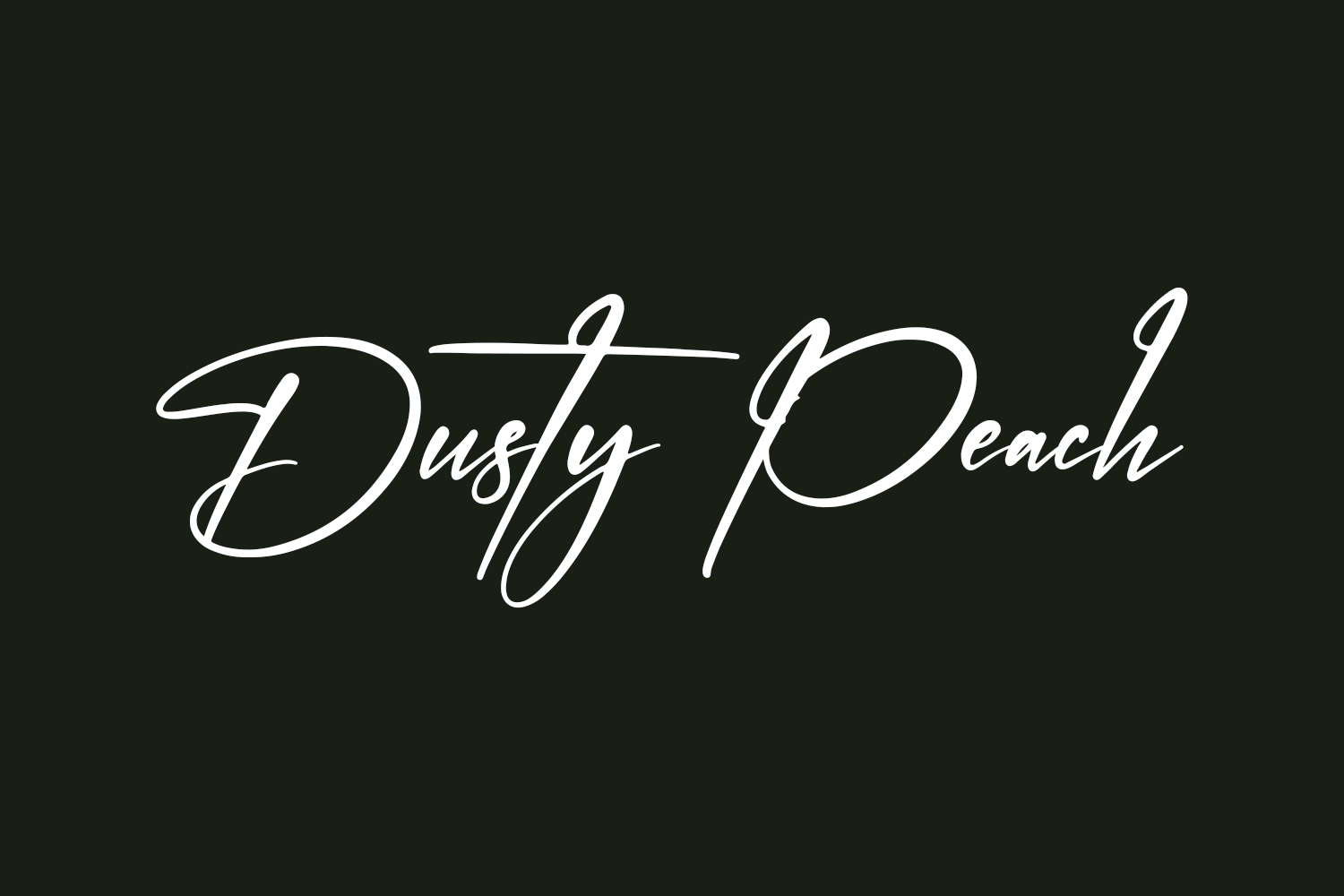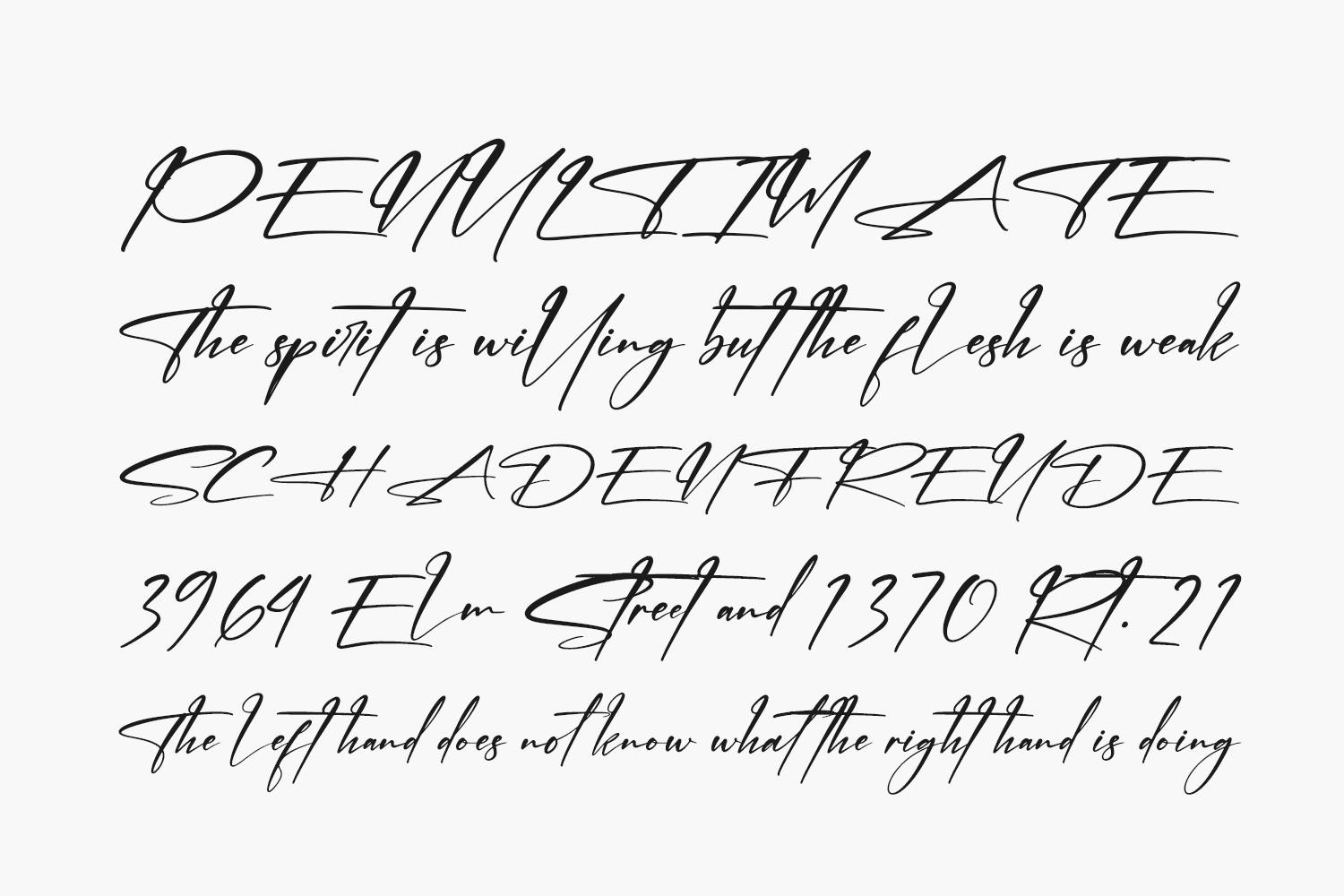
Dusty Peach Free Font is an exquisite and airy handwritten font, characterized by its distinct personality and striking visual impression. Incorporate this font to infuse a touch of luxury into your design projects, elevating them to new heights. Dusty Peach Free Font is free for personal use only. Please purchase the full version for commercial use.
Designed by Letterena Studios